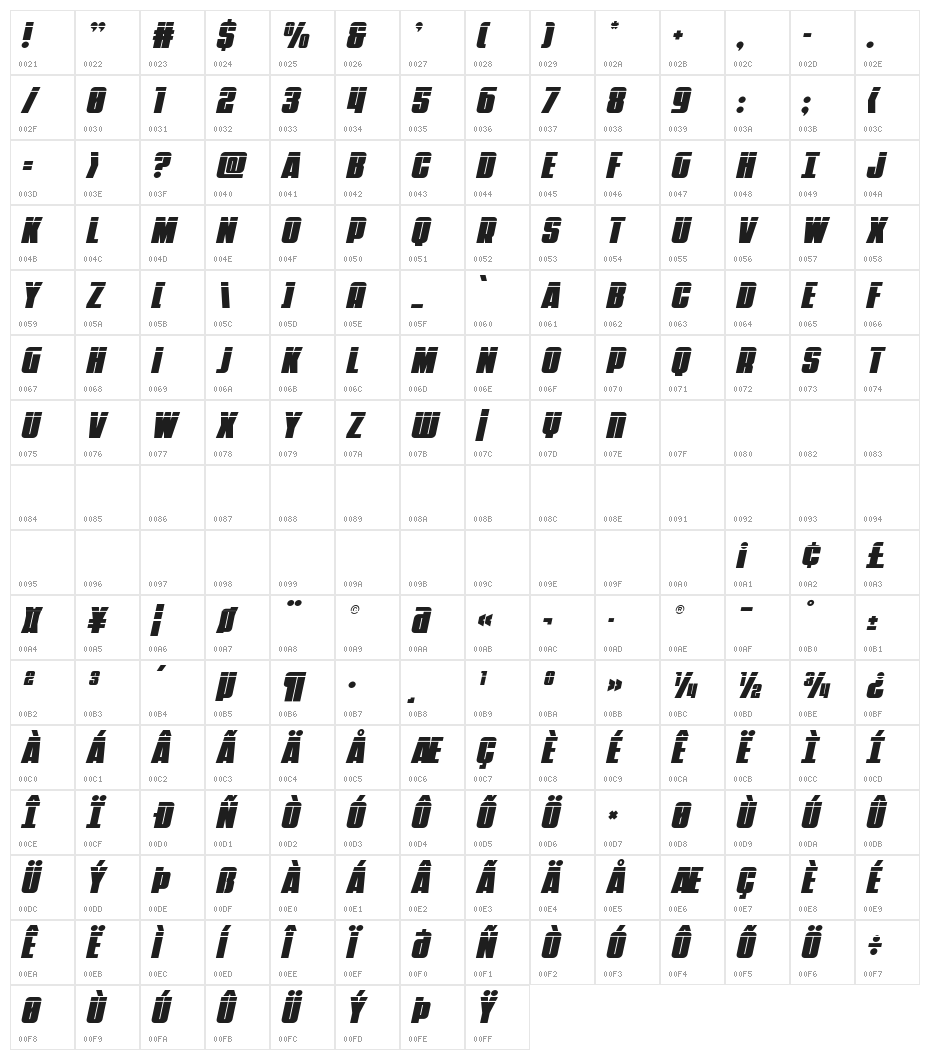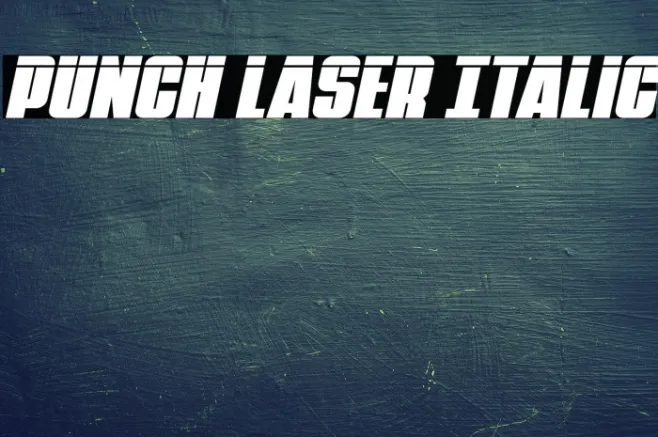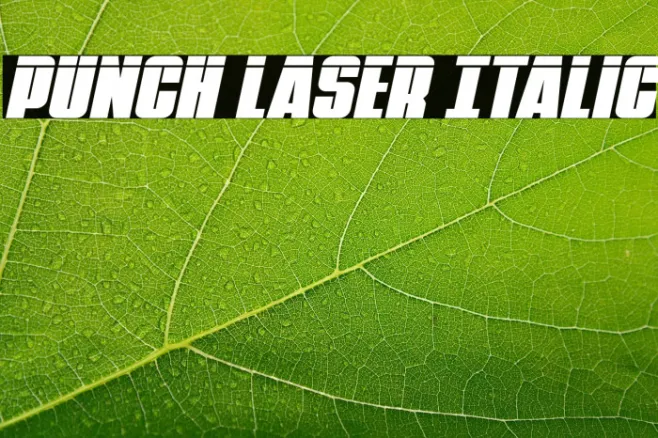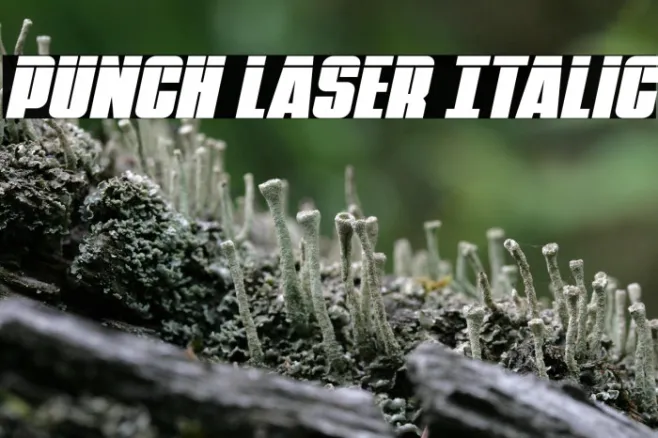
Punch Laser Italic Font
Punch Laser Italic Description
This font features a bold and aggressive style with a strong italic slant, giving it a dynamic and energetic appearance. The characters are wide and blocky, with sharp angles and a consistent stroke width that conveys a sense of power and impact. The uppercase and lowercase letters maintain a uniform height, enhancing readability while preserving the font's bold aesthetic. The numerals and special characters are designed to match the assertive style of the alphabet, making it suitable for attention-grabbing designs. The overall design is modern and sleek, ideal for projects that require a strong visual presence.
| Proposed Projects | Ideal for sports branding, action movie posters, video game titles, and dynamic advertising campaigns. |